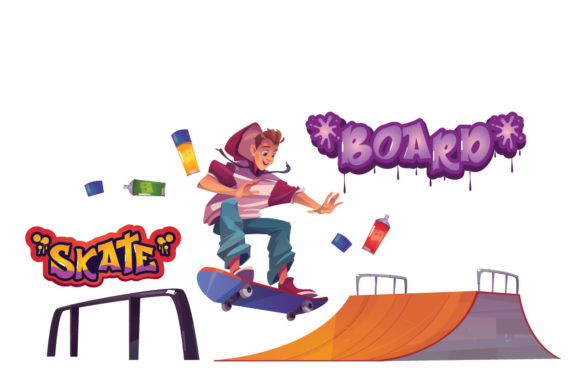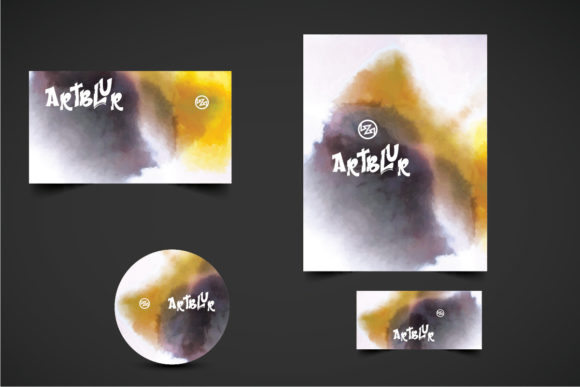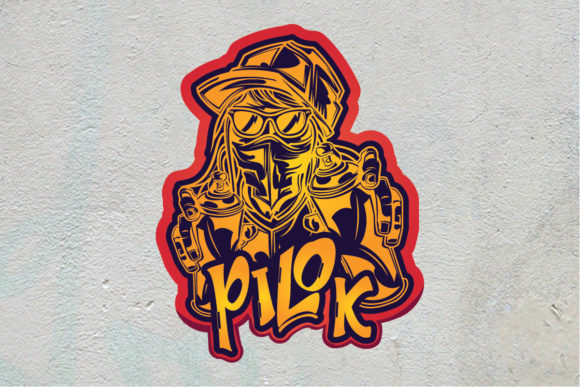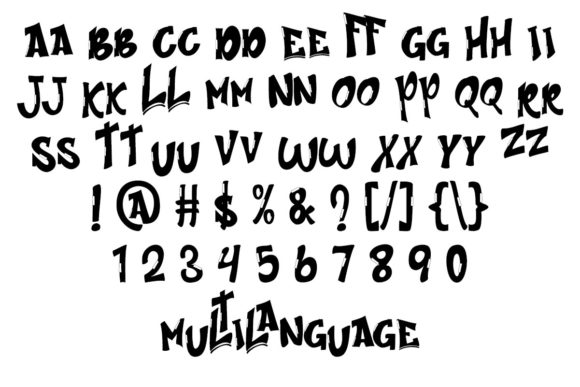
About Streetart Font
Streetart is an awesome, graffiti-styled display font that has an urban art vibe. This font is suitable for designs such as t-shirts, sportswear, logos, advertisements, clothing, and more. Streetart is PUA encoded which means you can access all glyphs and swashes with ease!